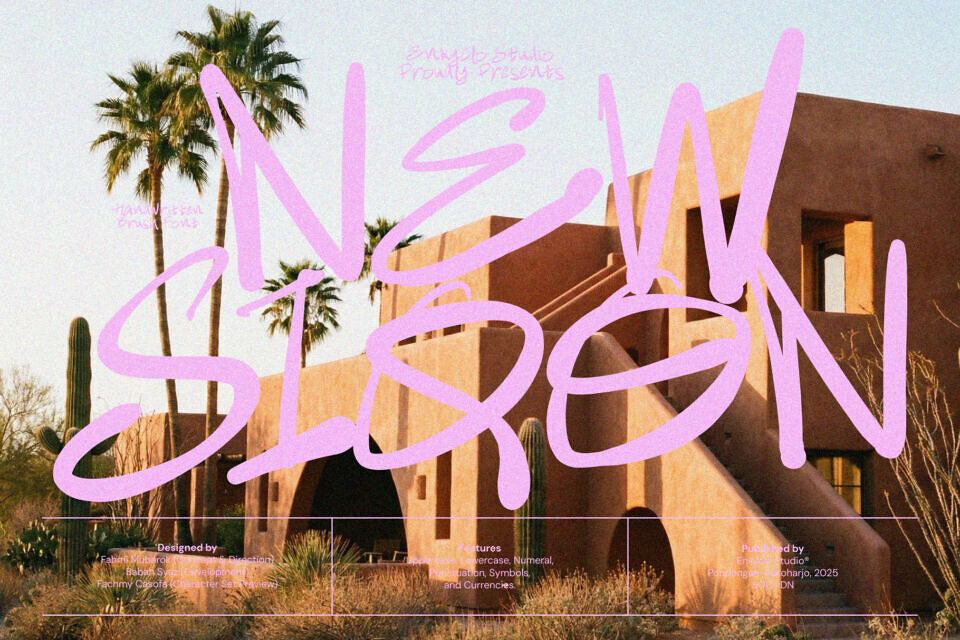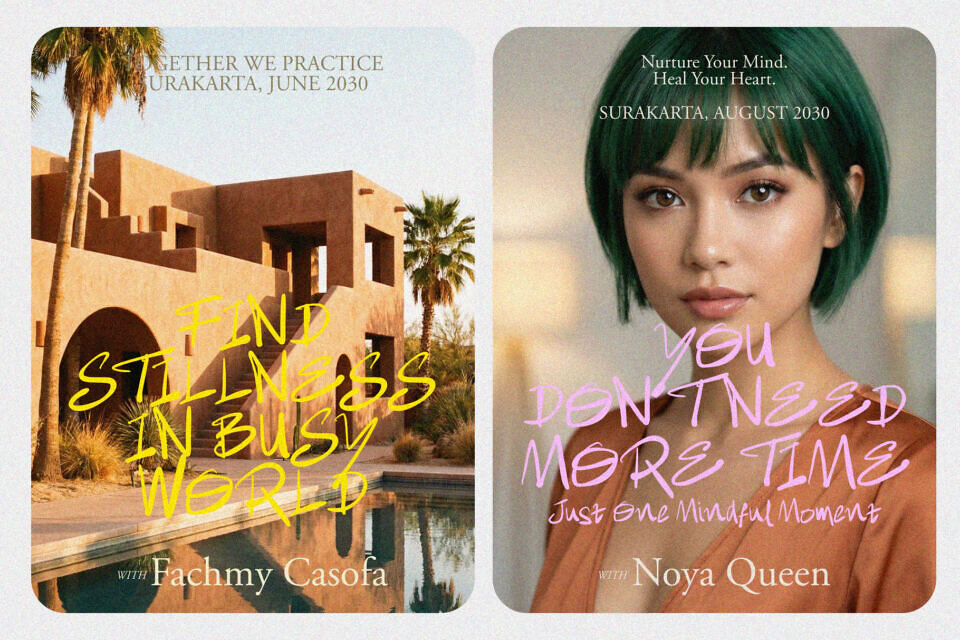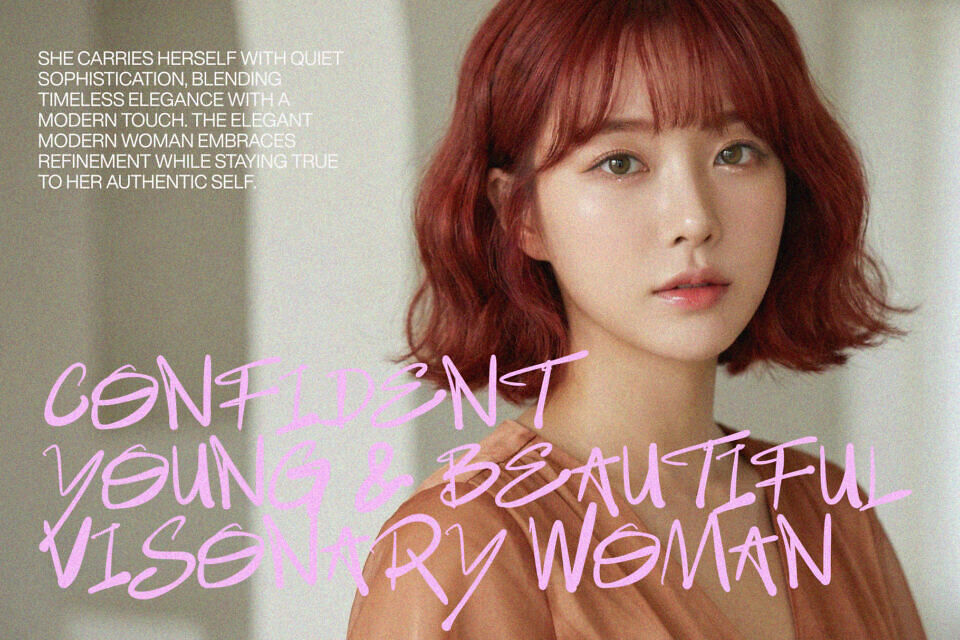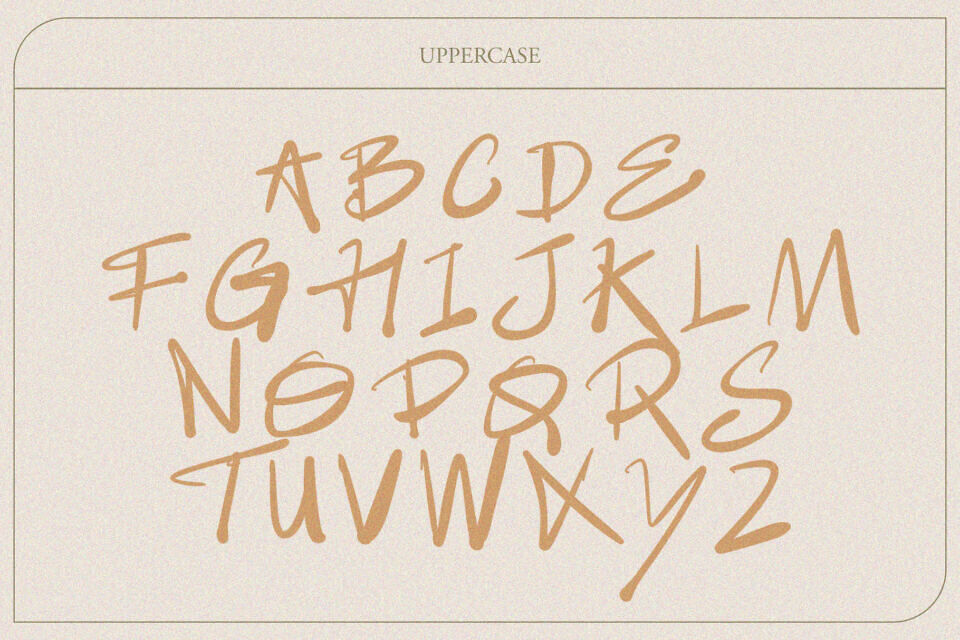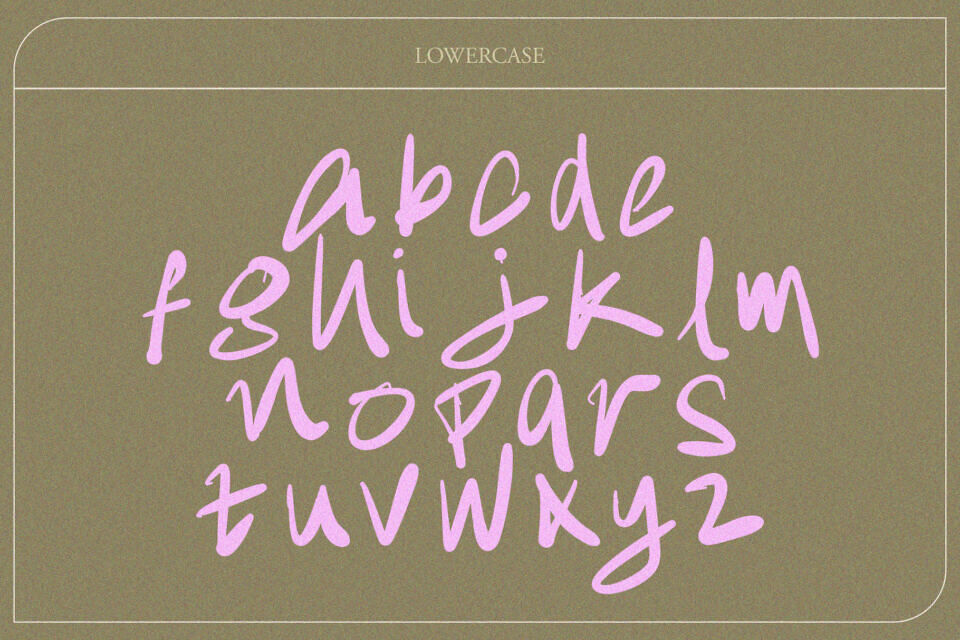
NEW SIQON is a bold brush font crafted with an expressive hand-drawn style that brings raw energy and spontaneous personality to your designs. Its strong strokes, textured edges, and authentic handwritten character create a powerful visual impact—perfect for designers who want something unique, sporty, and full of attitude.
With its raw and dynamic aesthetic, NEW SIQON instantly stands out in posters, headlines, and sports-themed visuals, delivering intensity and movement in every letter.